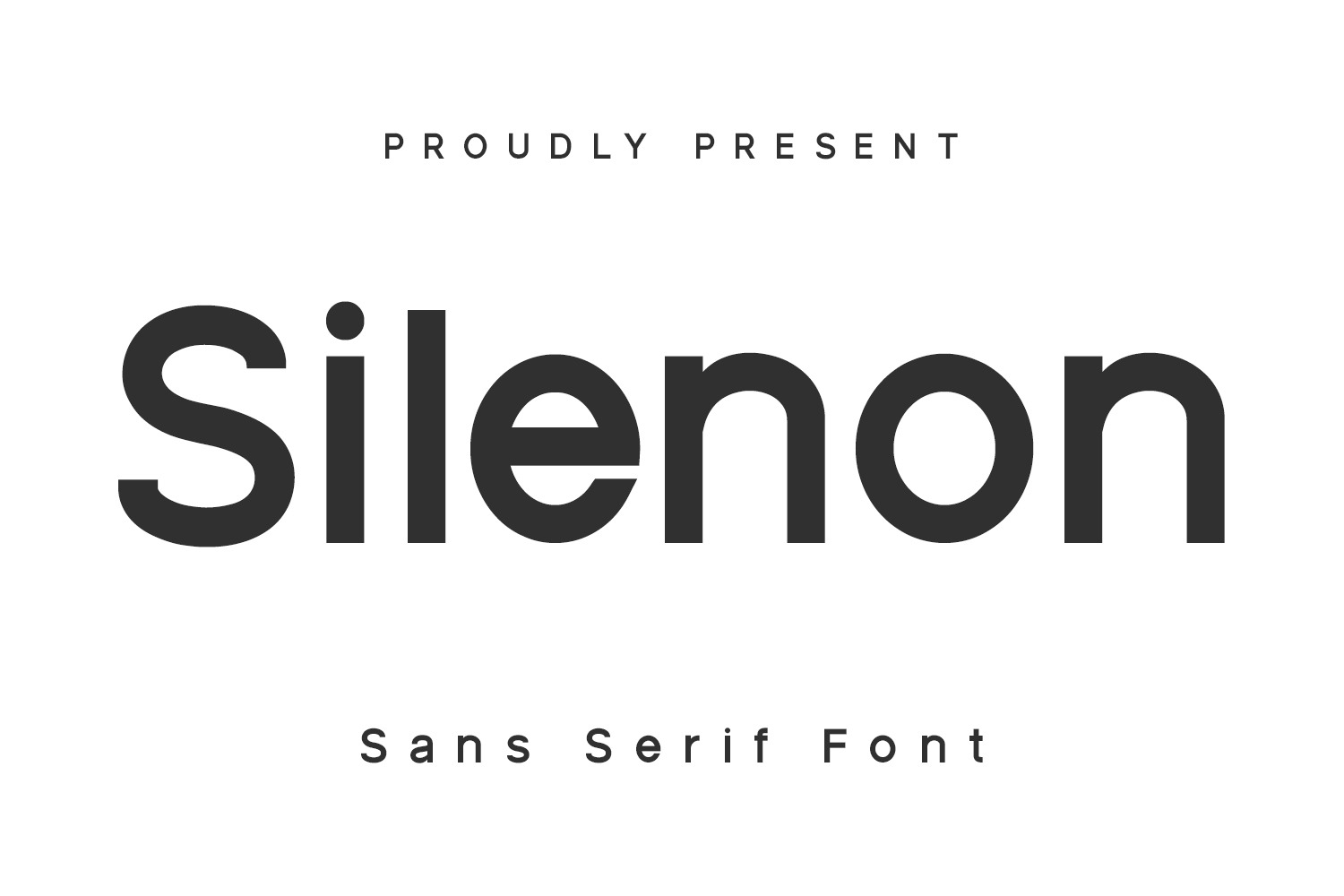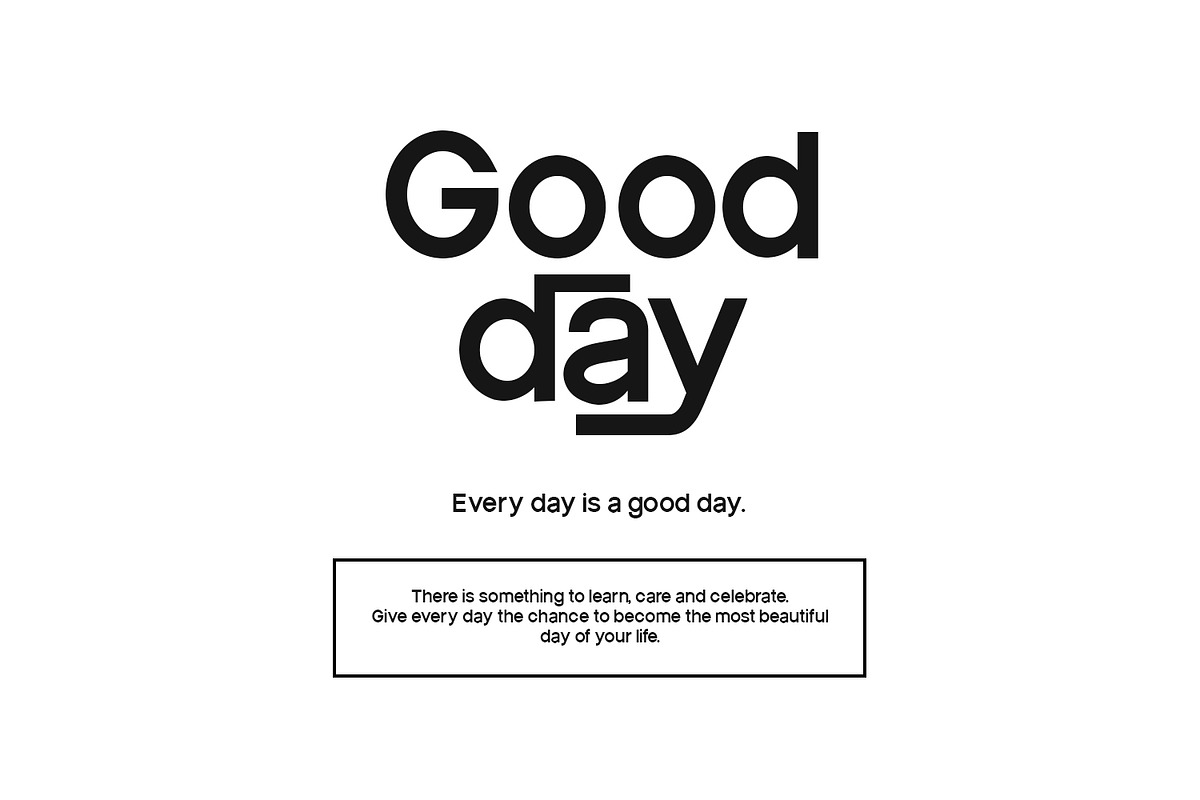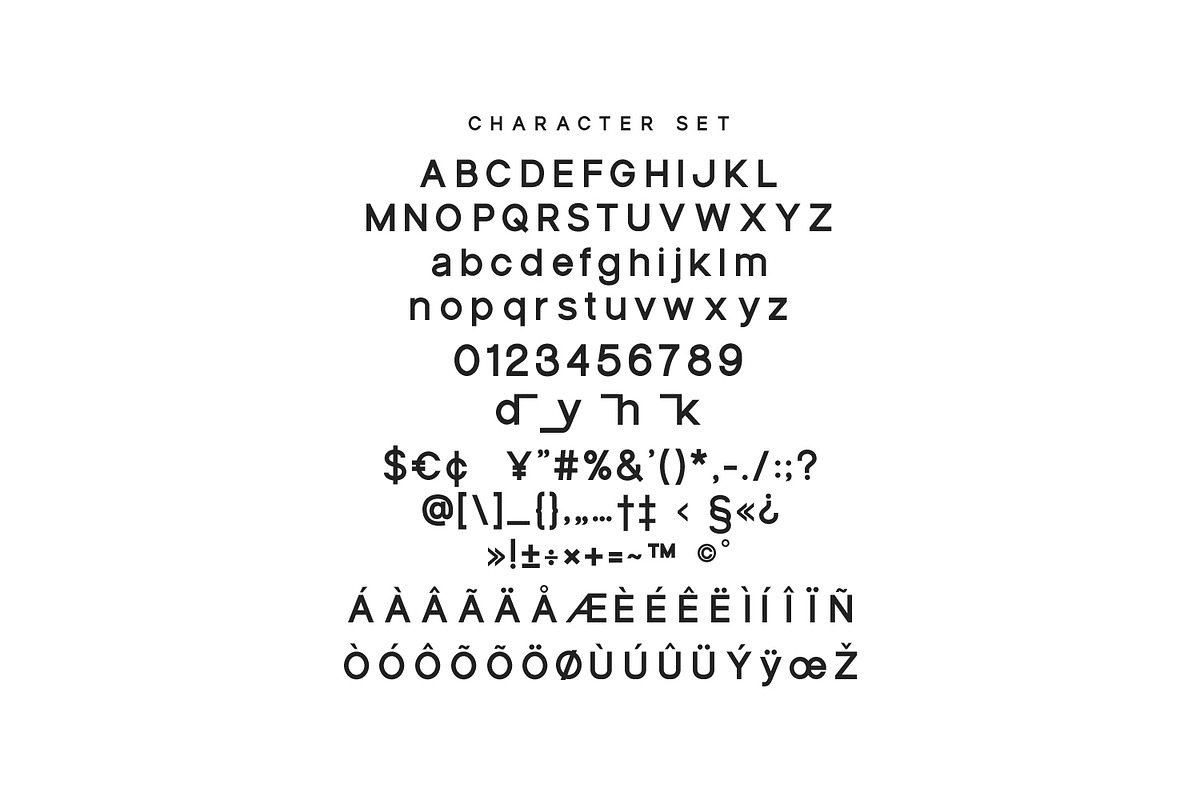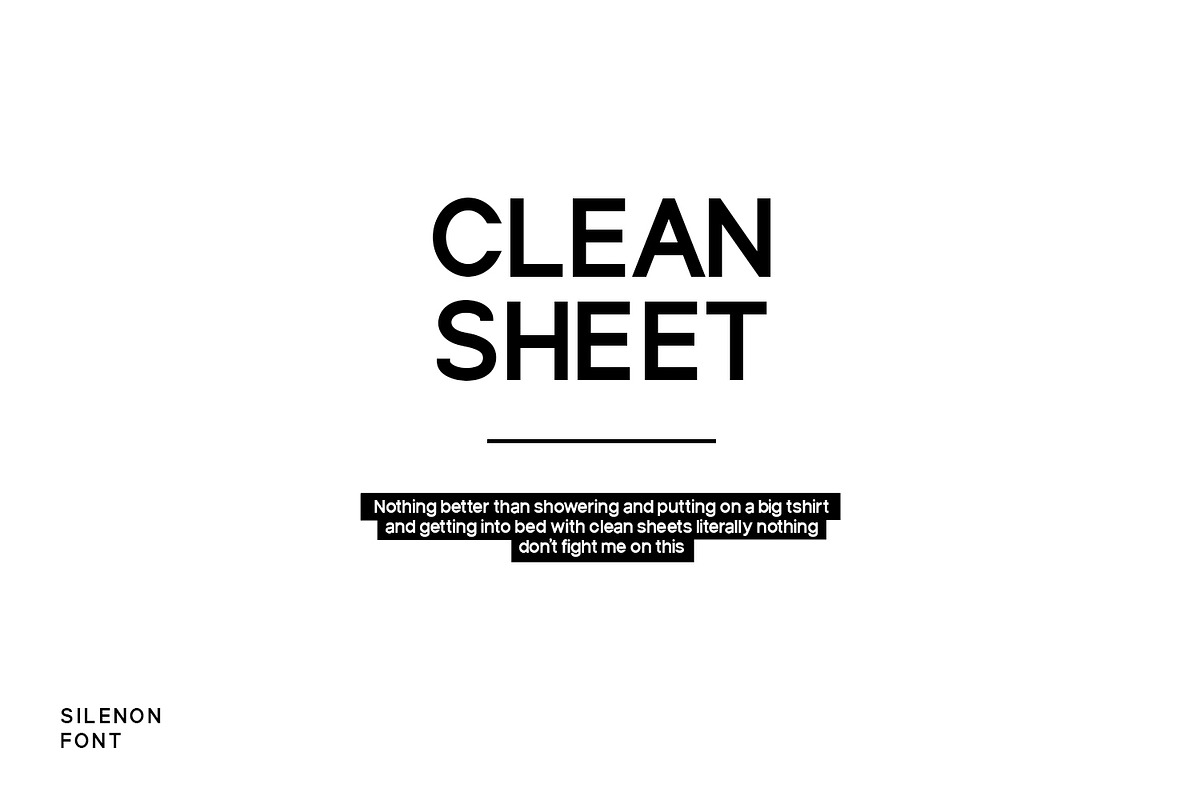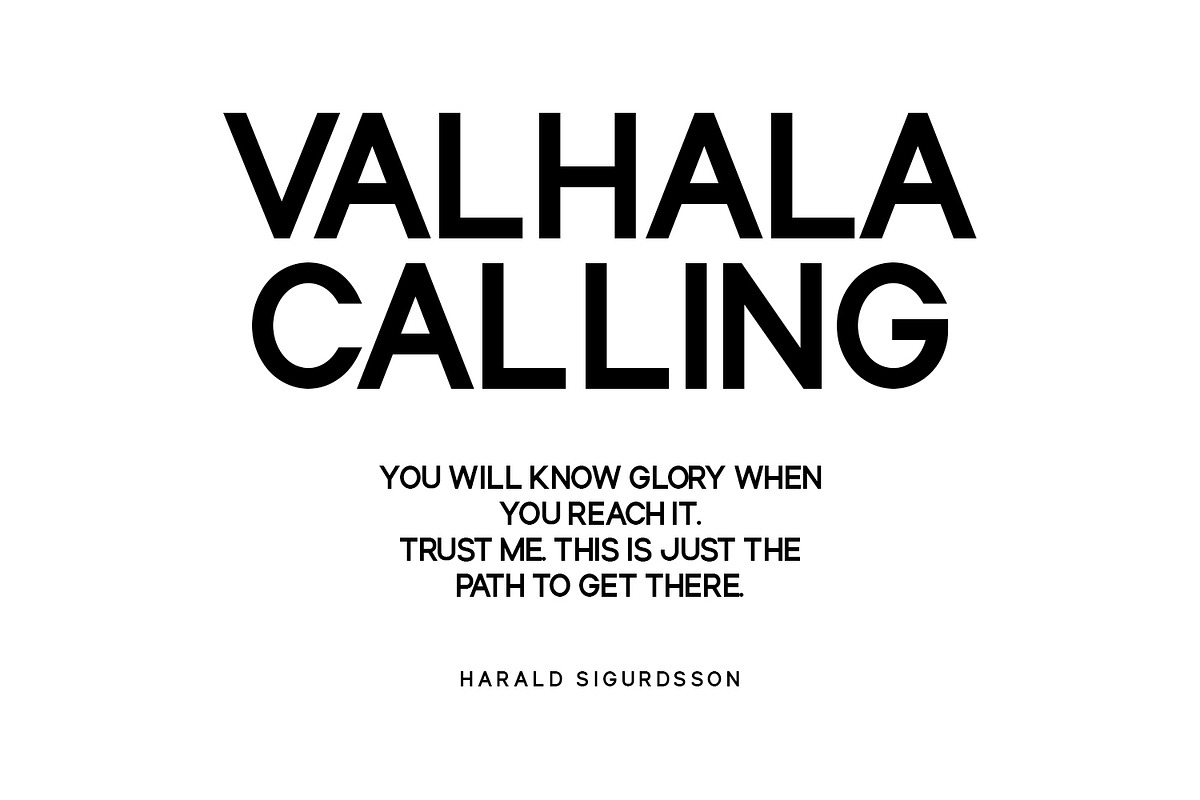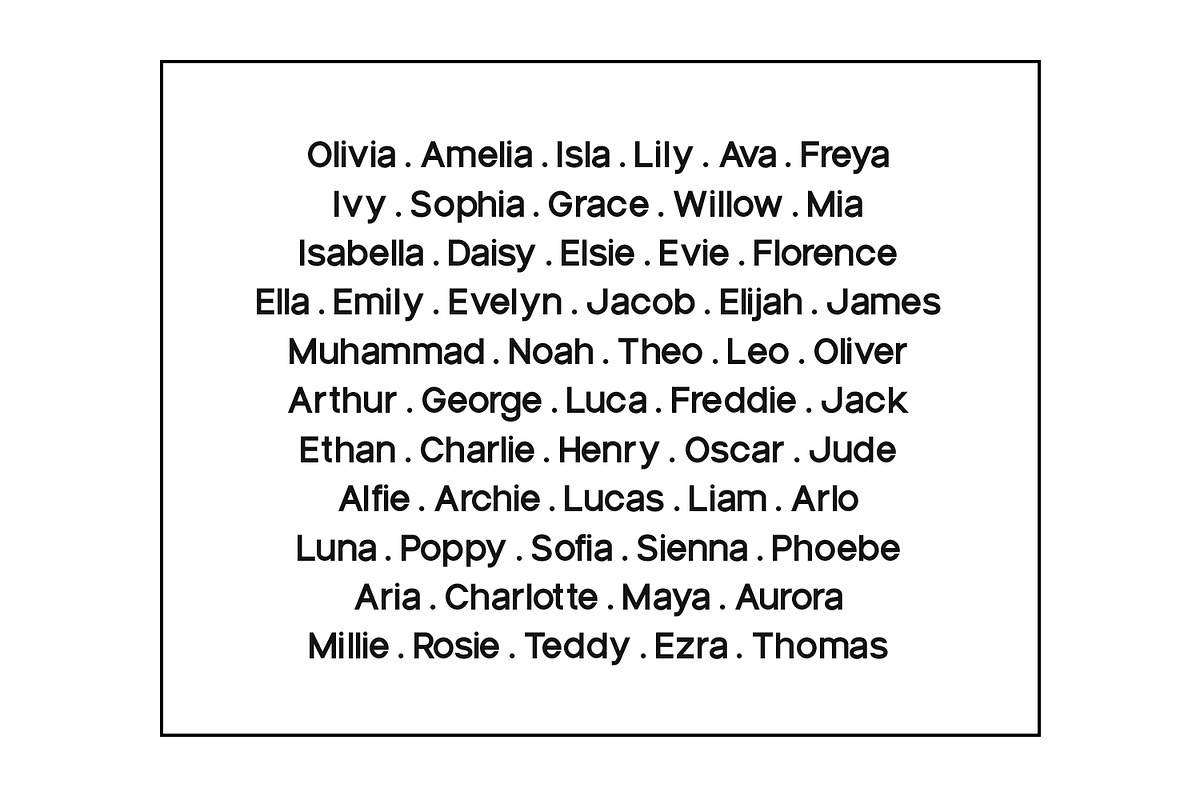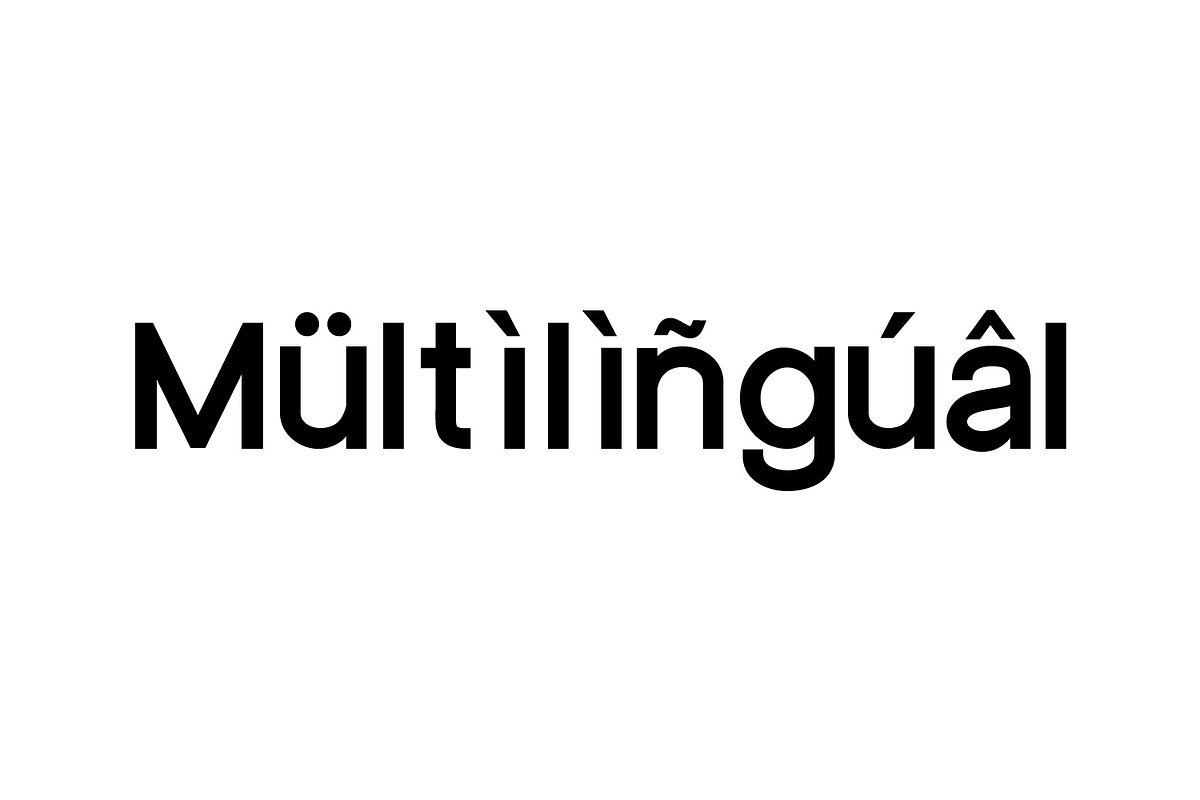
Silenon Sans Serif Font Display
Silenon is a modern sans serif font. With medium stroke, fun character with a bit of alternate. To give you an extra creative work Silenon font support multilingual more than 100+ language. This font is good for logo design, Social media, Movie Titles, Books Titles, a short text even a long text letter and good for your secondary text font with sans or serif. Make a stunning work with Silenon font.